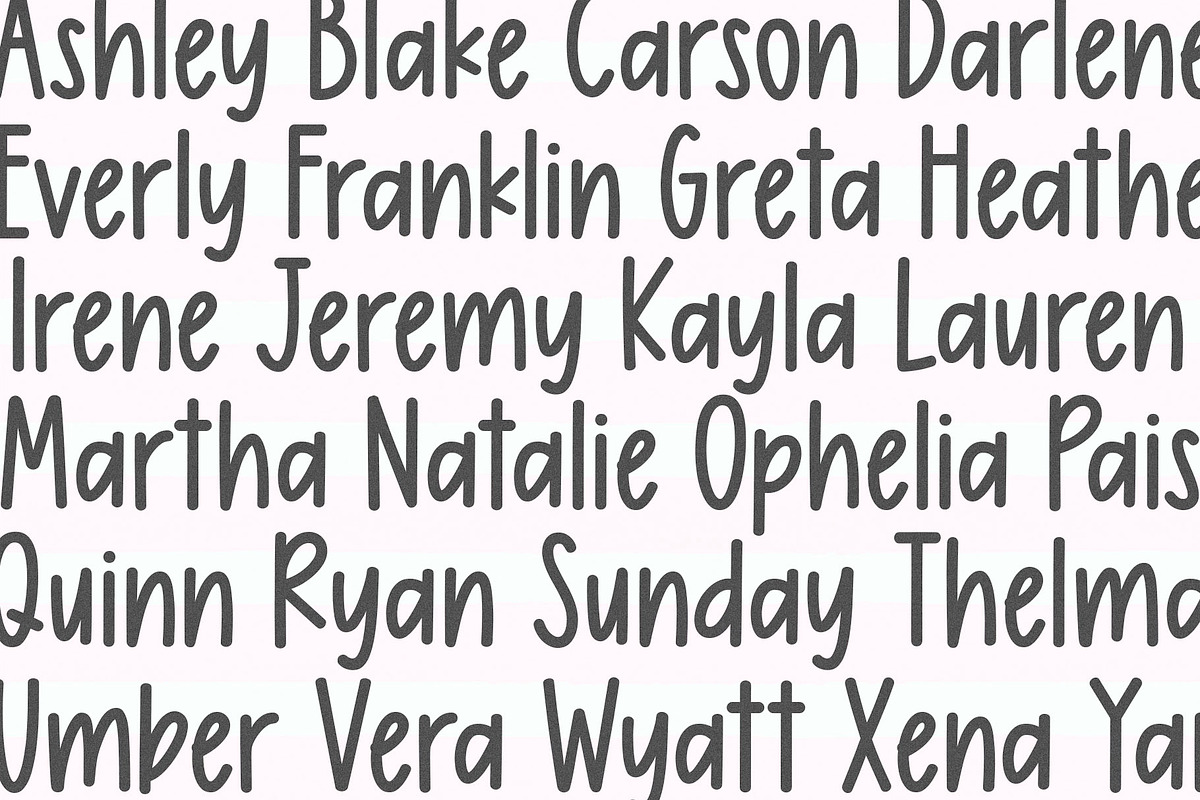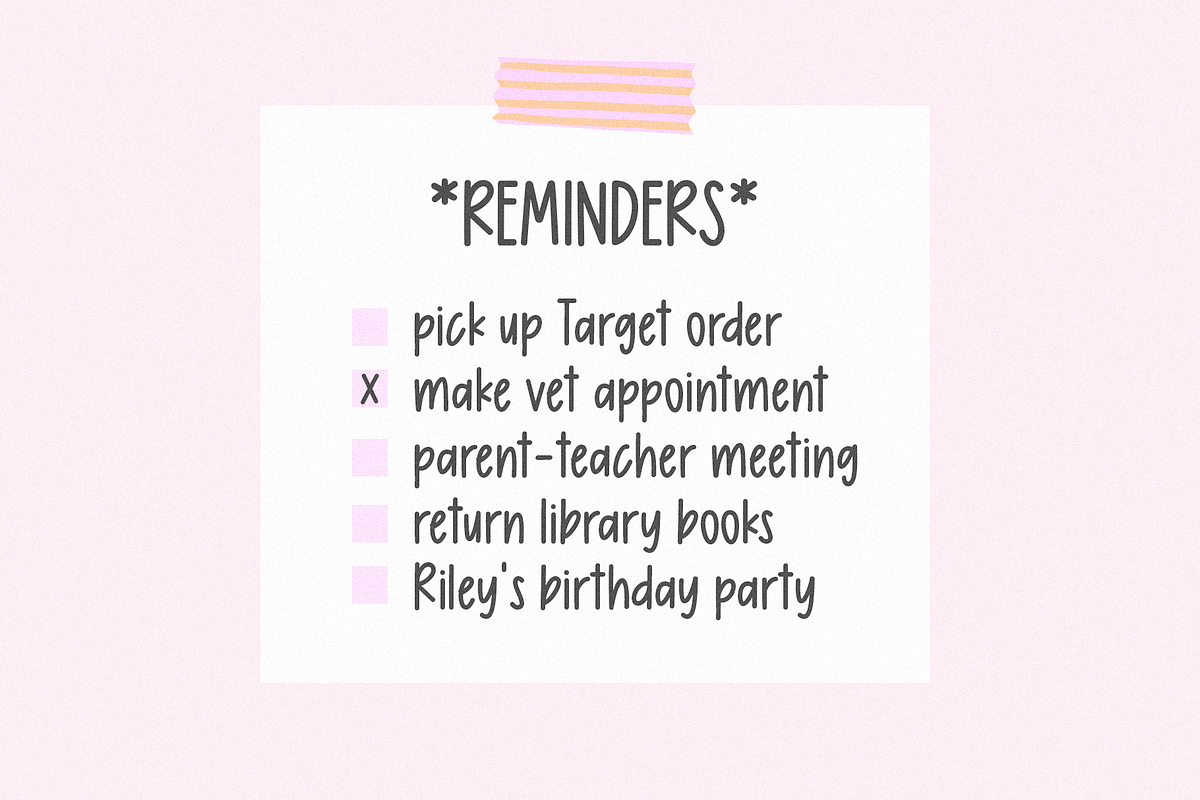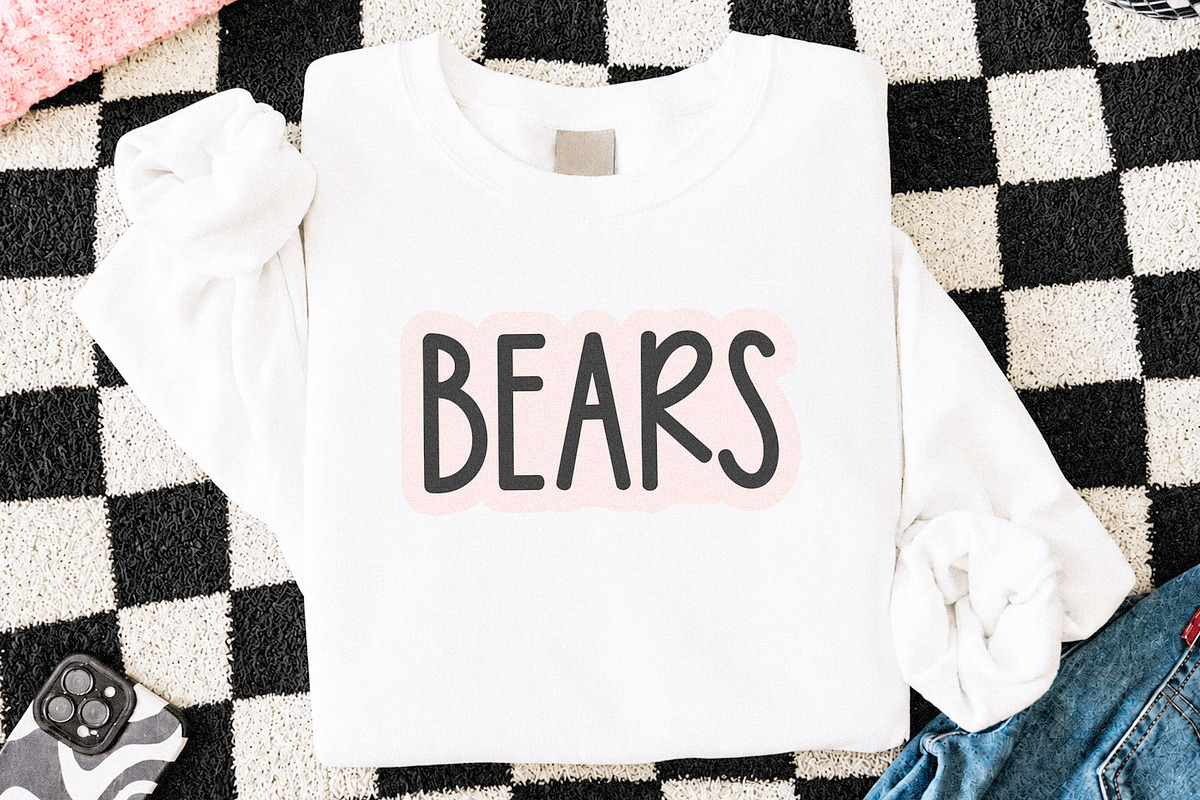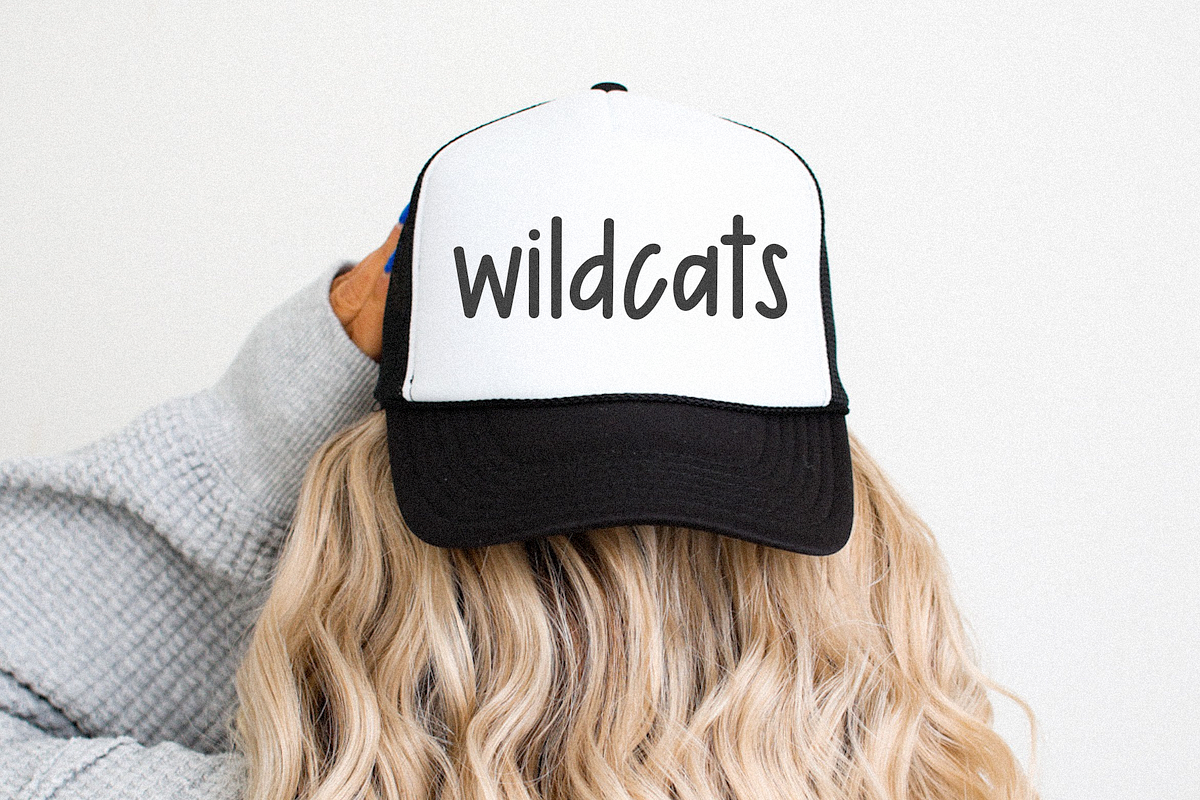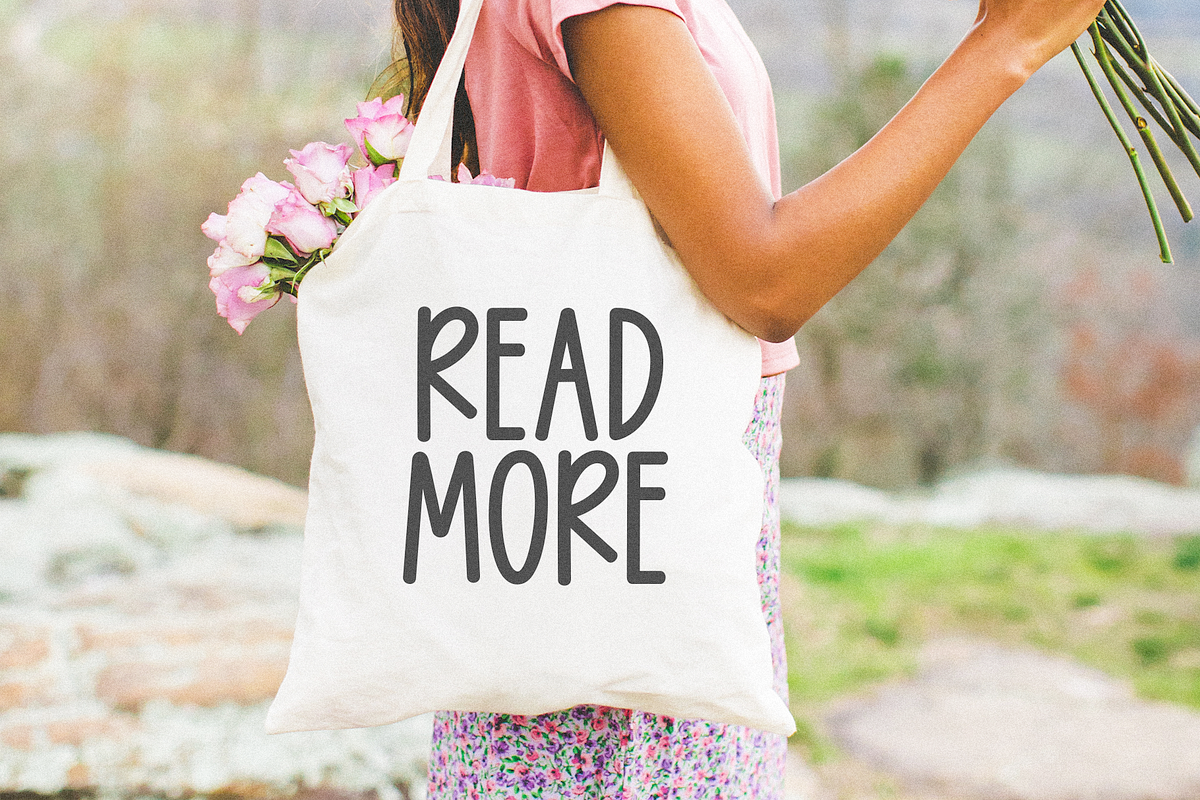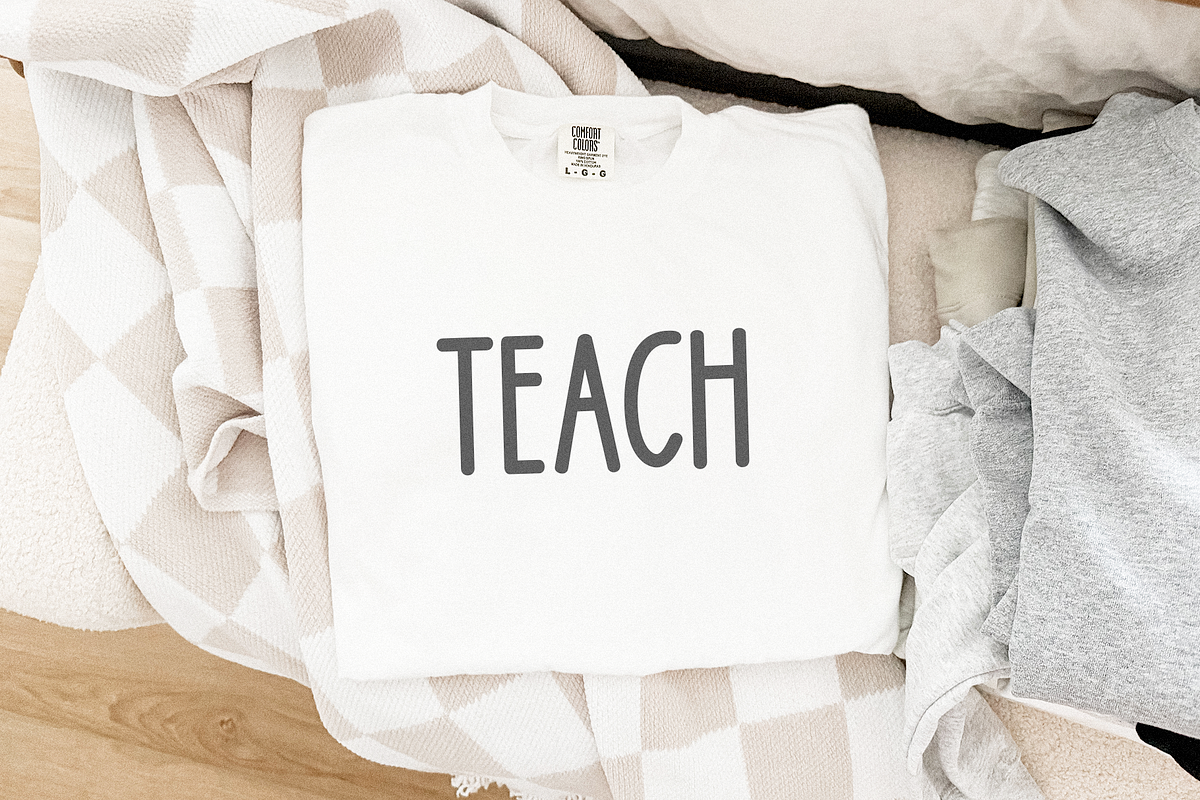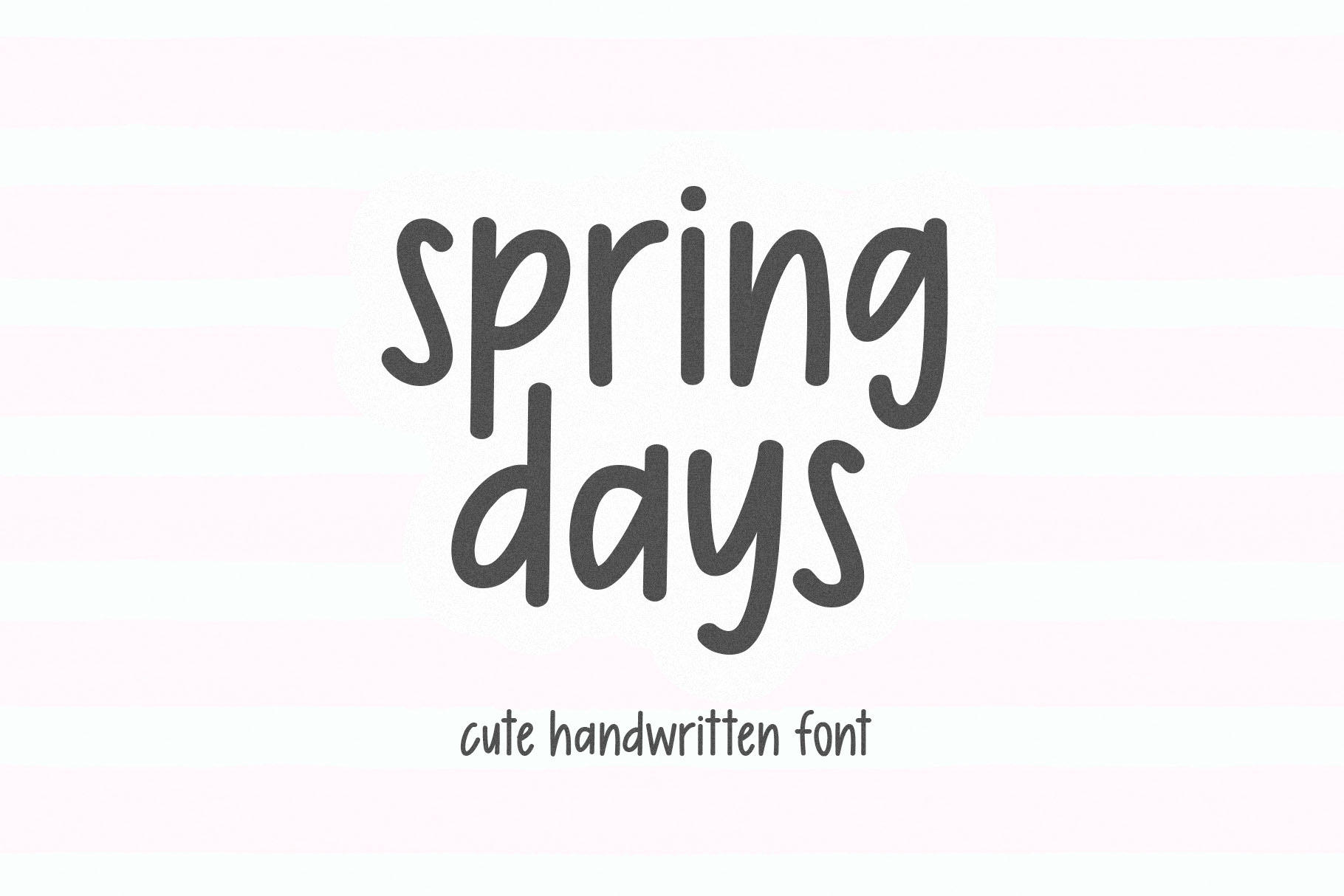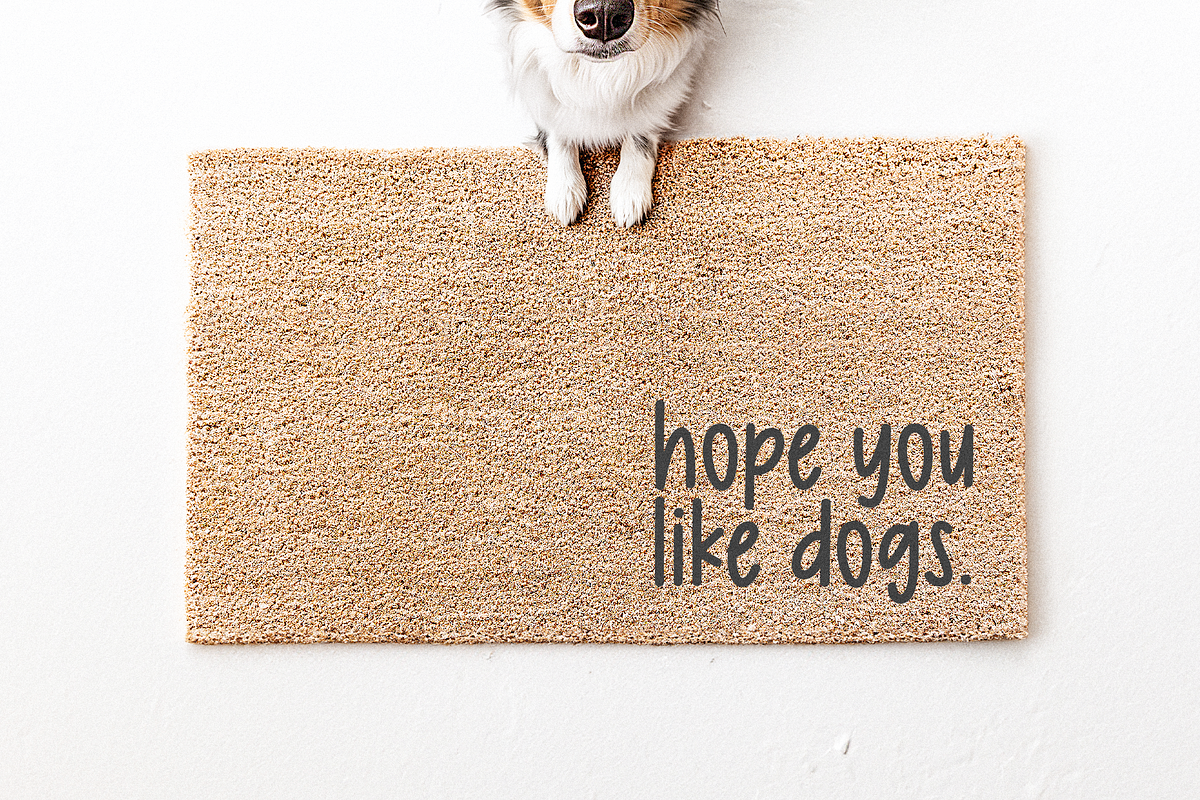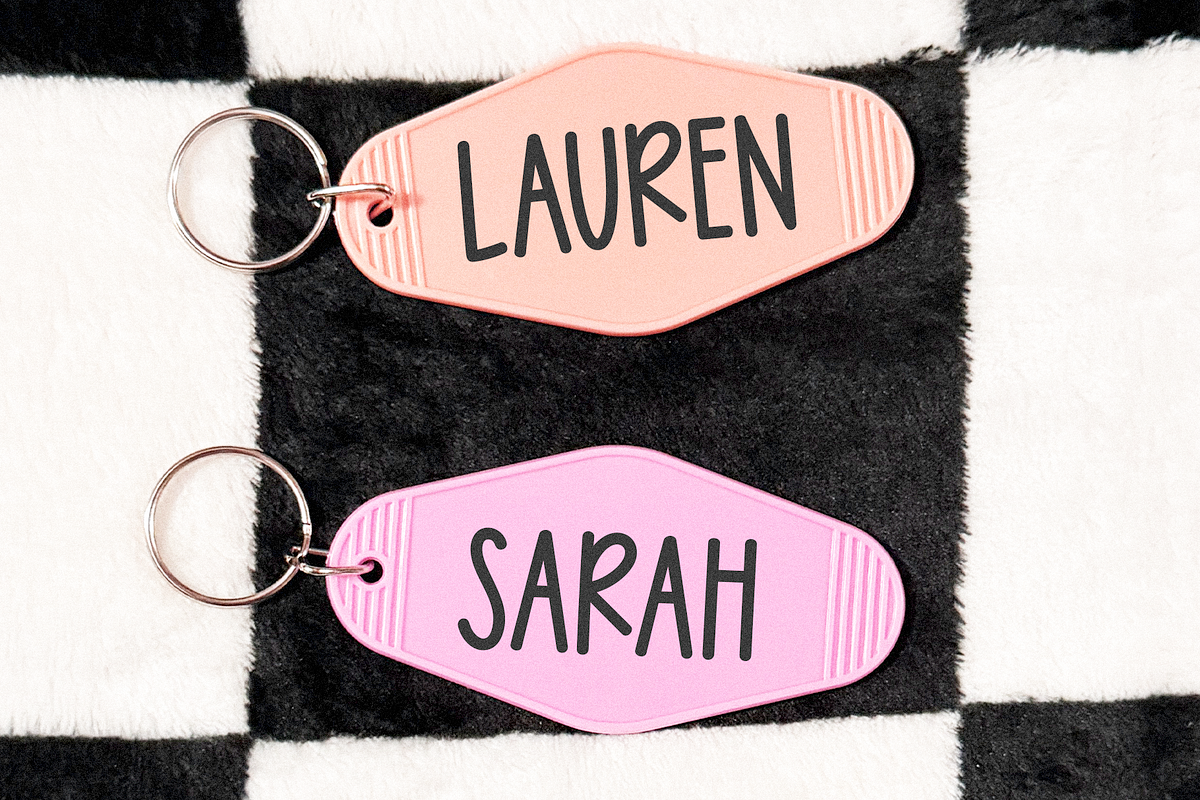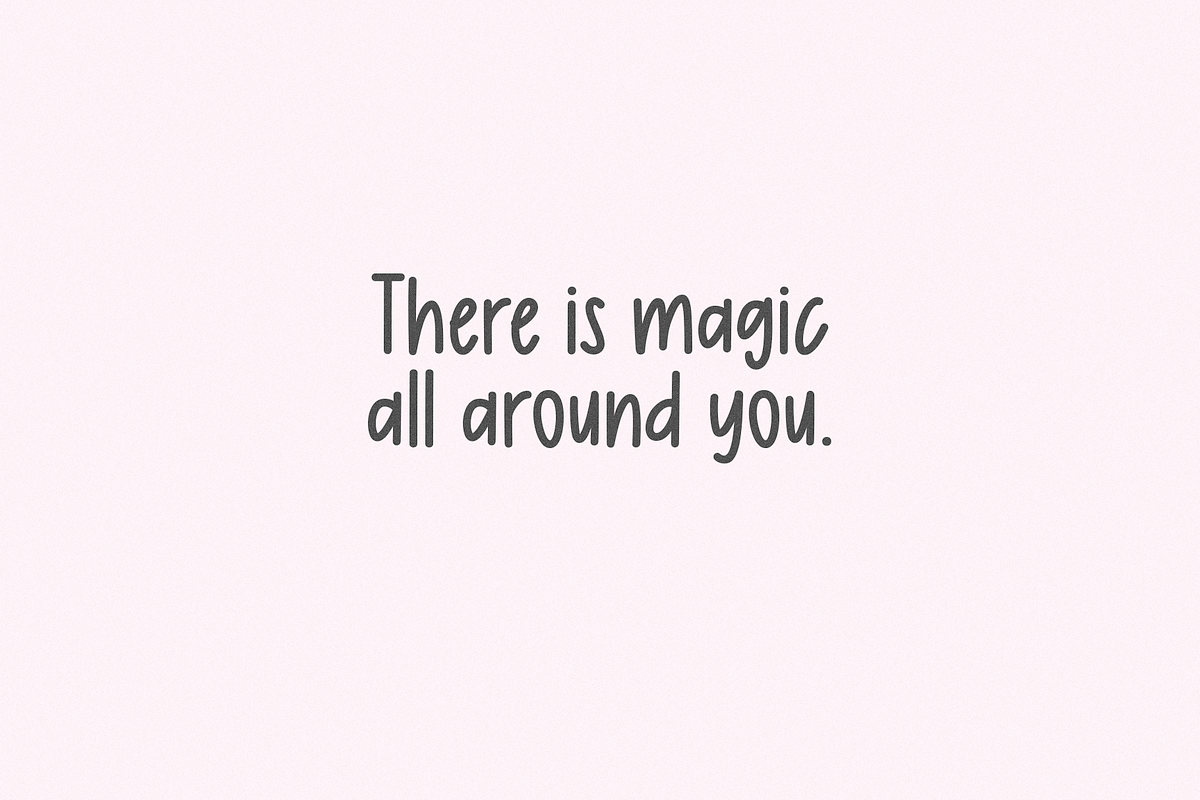
Spring Days | Cute Handwritten Font
Spring Days is a cute handwritten font.
This font is perfect for planners, goodnotes, teachers, canva, cricut projects, logos, notes and more!